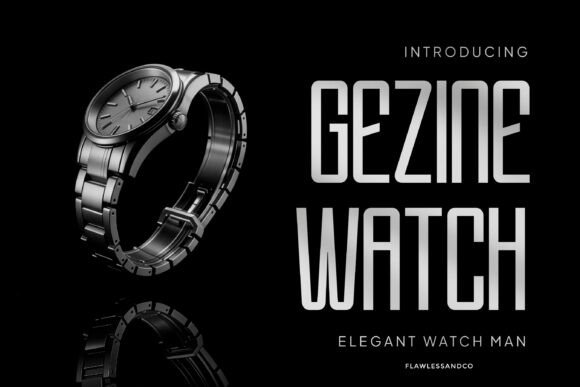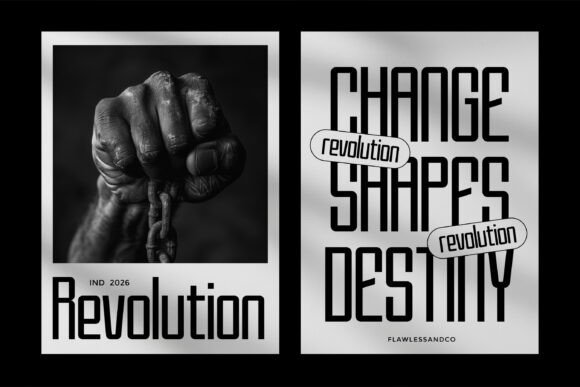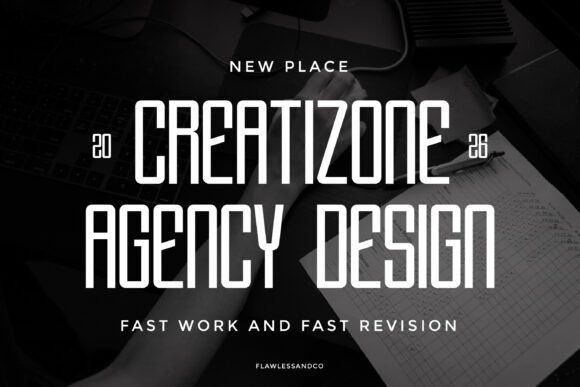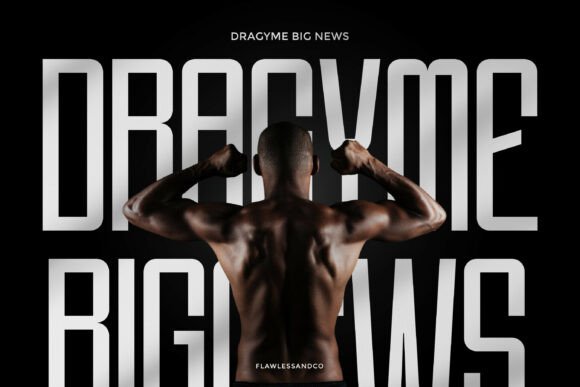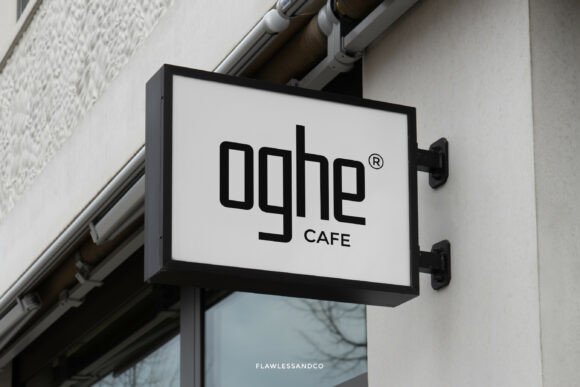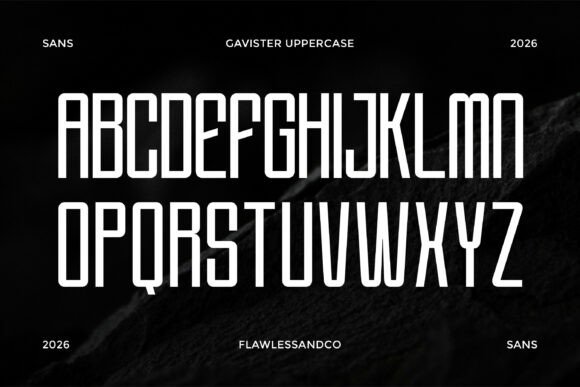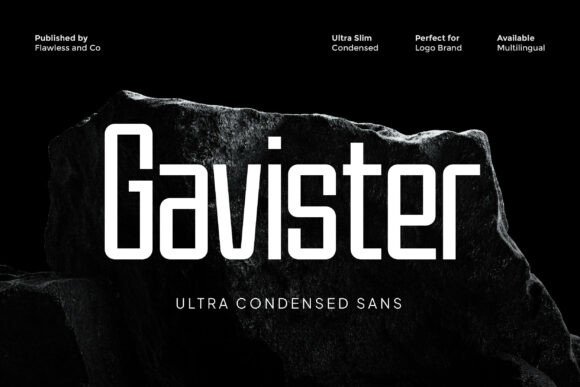
Introducing Gavister Font: The Ultimate Ultra-Condensed Sans Serif for Impactful Designs
In the world of typography, font selection plays a crucial role in conveying the message and aesthetic of a brand or design. For designers and crafters looking for a font that packs a punch without taking up too much space, Gavister is an excellent choice. This ultra-condensed sans serif font is specifically designed to deliver maximum impact with minimal space, making it perfect for headlines, layouts, and modern branding.
The Design Philosophy of Gavister
Gavister boasts tall, narrow letterforms and a clean, modern structure that creates a bold and striking visual presence. Its compact design allows for excellent readability, even in small sizes, making it an ideal choice for designs where space efficiency and strong typography are essential. The font’s sleek and professional edge makes it suitable for a wide range of applications, from editorial design to corporate branding.
Key Features of Gavister Font
- Ultra-condensed design: Gavister’s narrow letterforms make it perfect for designs where space is limited, such as headlines, titles, and captions.
- Clean and modern structure: The font’s sleek lines and minimalist aesthetic give it a professional and contemporary look.
- Excellent readability: Despite its condensed design, Gavister remains highly legible, even in small sizes.
- Bold and striking visual presence: The font’s tall letterforms and bold lines create a lasting impression, making it perfect for headlines and titles.
Applications of Gavister Font
Gavister’s versatility makes it suitable for a wide range of design applications, including:
- Modern branding: Gavister’s sleek and professional edge makes it an excellent choice for corporate branding, logos, and marketing materials.
- Editorial design: The font’s excellent readability and bold visual presence make it perfect for editorial design, such as magazine titles, headlines, and captions.
- Headlines and titles: Gavister’s ultra-condensed design and bold lines make it ideal for headlines, titles, and captions where space is limited.
- Layouts and typography: The font’s compact design and excellent readability make it suitable for layouts and typography where space efficiency and strong typography are essential.
Why Choose Gavister Font?
With Gavister, designers and crafters can create impactful and visually striking designs without sacrificing readability or taking up too much space. The font’s unique combination of ultra-condensed design, clean structure, and bold visual presence makes it an excellent choice for a wide range of design applications.
Whether you’re looking to create a bold and striking headline, a professional corporate brand, or a sleek editorial design, Gavister is the perfect font for the job. Its versatility, readability, and impact make it an essential tool for any designer or crafter looking to elevate their typography and create lasting impressions.
In conclusion, Gavister is an ultra-condensed sans serif font that delivers maximum impact with minimal space. Its clean and modern structure, excellent readability, and bold visual presence make it perfect for a wide range of design applications, from modern branding to editorial design. With Gavister, designers and crafters can create visually striking and impactful designs that leave a lasting impression.